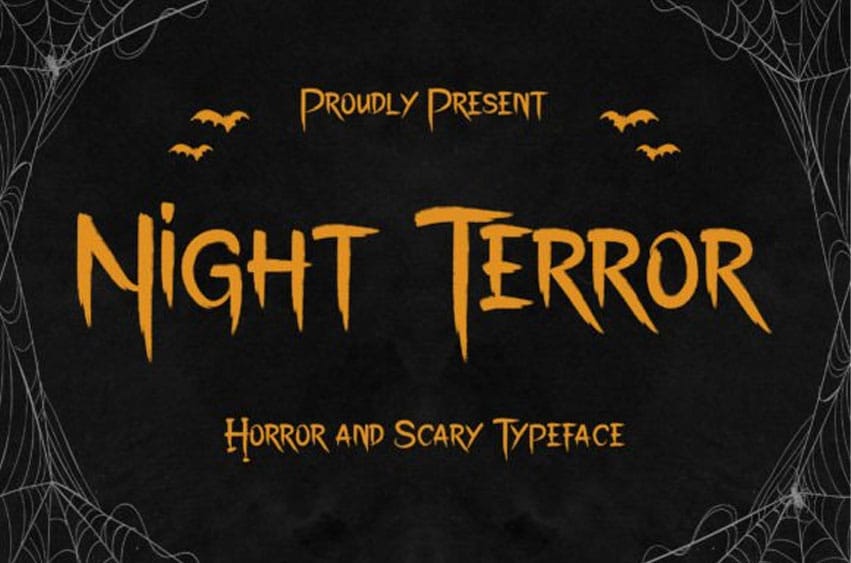
Night Terror Font Enter the realm of darkness with “Night Terror” – a horror and scary typeface that will send shivers down your spine. Embrace the terror of “Night Terror” as it adds an unsettling atmosphere to your projects.
Whether you’re creating bone-chilling logos, spine-tingling invitations, or haunting illustrations, this typeface will leave a lasting impression with its sinister and menacing style.